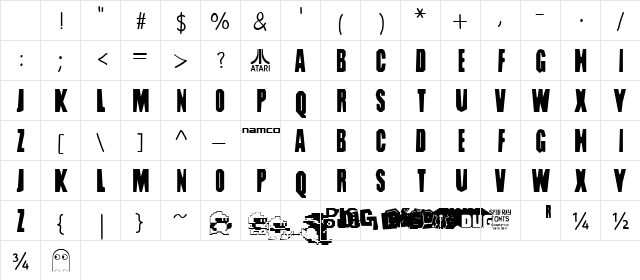
DIG DUG is a composed and adaptable typeface that performs quietly and consistently across a wide range of design contexts.
Pro Tip: Use DIG DUG in both headline and body roles to test its range before committing to a single application.